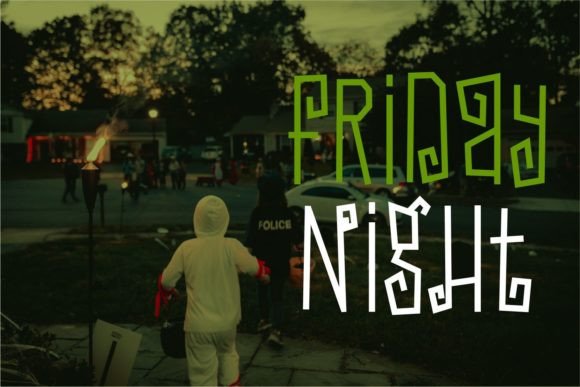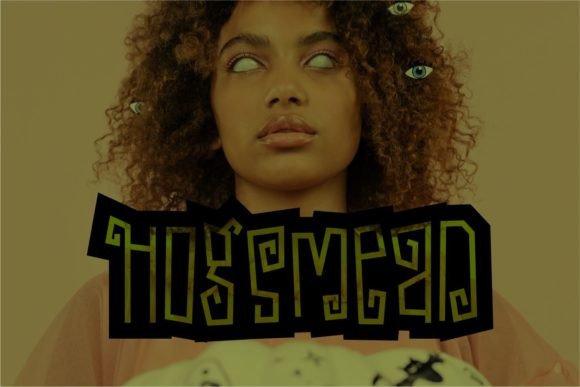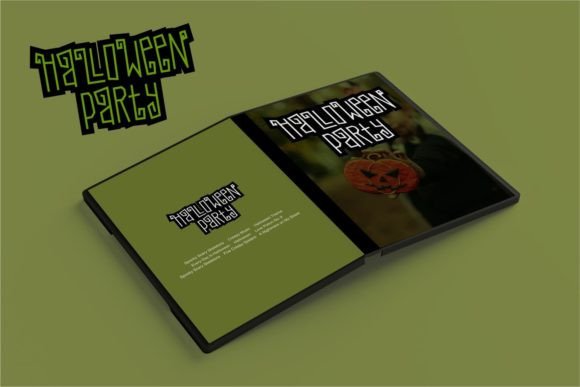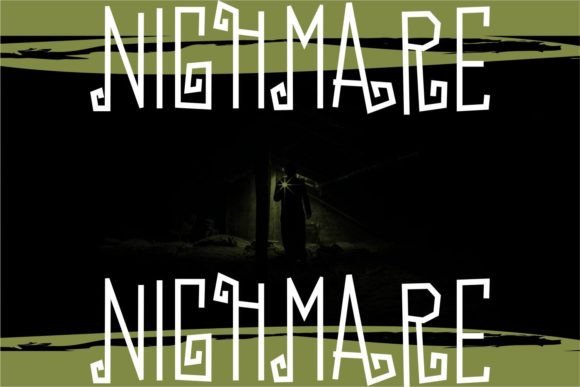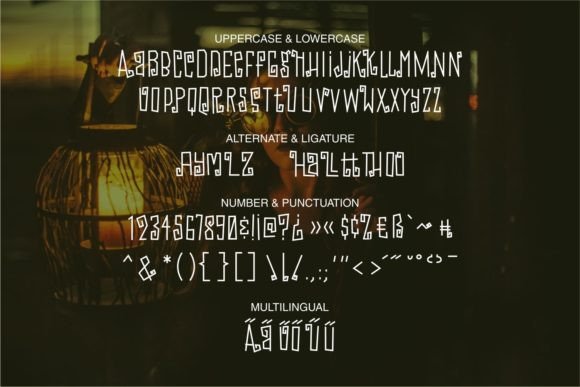
Unleashing the Horror: A Guide to Hogem Font
Do you remember that moment when a creepy atmosphere and a dash of humor perfectly captured the essence of your creative project? For designers, that ‘aha’ moment is what makes all the difference. Whether it’s a Halloween-themed design or a horror movie poster, the right font can elevate your work to the next level.
Enter the Hogem Font, a quirky and horror display font that’s sure to send chills down your spine. With its jagged and distorted letterforms, Hogem Font creates a creepy and unsettling feel, while its playful twist adds a touch of humor – making it the perfect design resource for your next creative project.
Key Features of Hogem Font
- Unique, hand-drawn design ideal for creative projects requiring a personal touch.
- Transparency option allows for a seamless integration with various design elements, making it easy to customize for your project.
- Designed as a design resource for various creative projects, including logos, branding, and typography-based art.
- Perfect for designers who require a versatile and unique font to elevate their creative project.
Honest Review: Hogem Font
I recently came across the Hogem Font and was excited to dive in and see what it had to offer. As a designer, I’m always on the lookout for high-quality design resources to elevate my creative projects.
First impressions are everything, and the Hogem Font definitely makes a statement. With a modern and sleek aesthetic, it’s perfect for a variety of design projects – from logos to digital products.
What works well: ✨ The Hogem Font is incredibly versatile and comes in a range of weights, making it easy to customize and adapt to different design needs. The transparent background feature also adds an extra layer of flexibility.
Overall, I’m impressed with the Hogem Font and think it’s a great addition to any designer’s toolkit. Whether you’re working on a personal project or a commercial one, it’s definitely worth checking out.
Tips for Getting the Most Out of Hogem Font
Use Hogem Font with a transparent background to create a clean and modern design. Experiment with different font sizes and styles to add depth and visual interest to your project.
Hogem Font is perfect for use in creative projects such as logos, brochures, and business cards. Its unique design and high quality make it an ideal choice for designers looking to add a touch of elegance to their work.